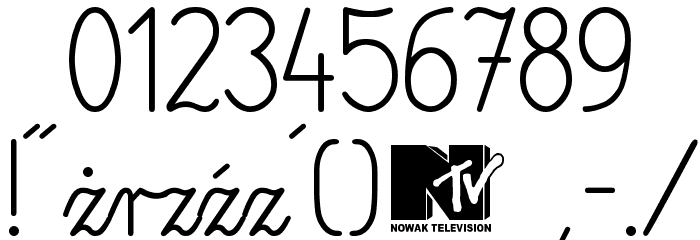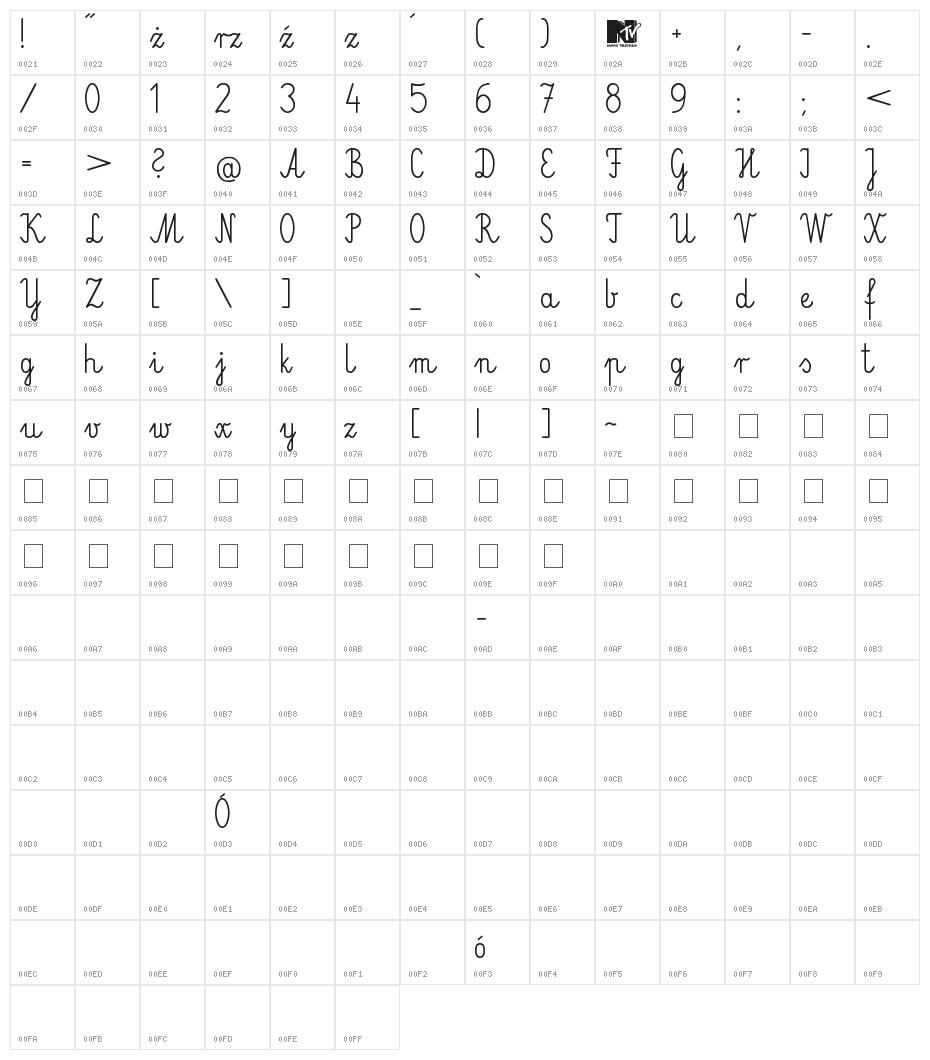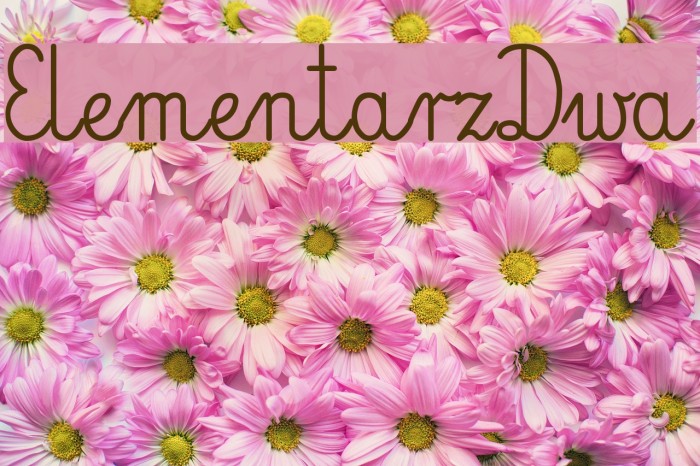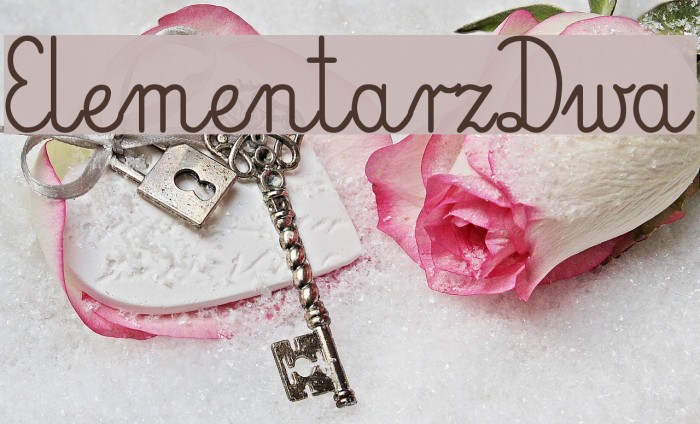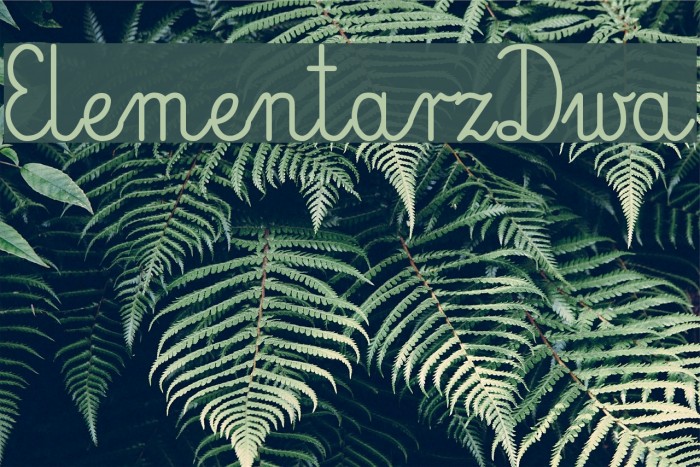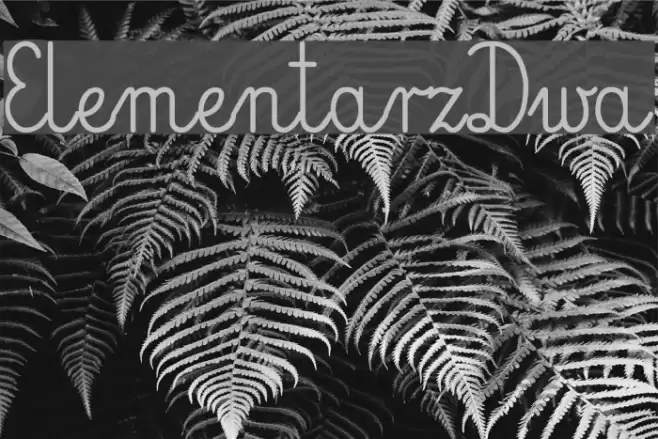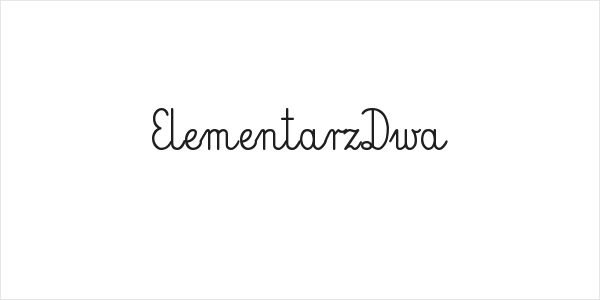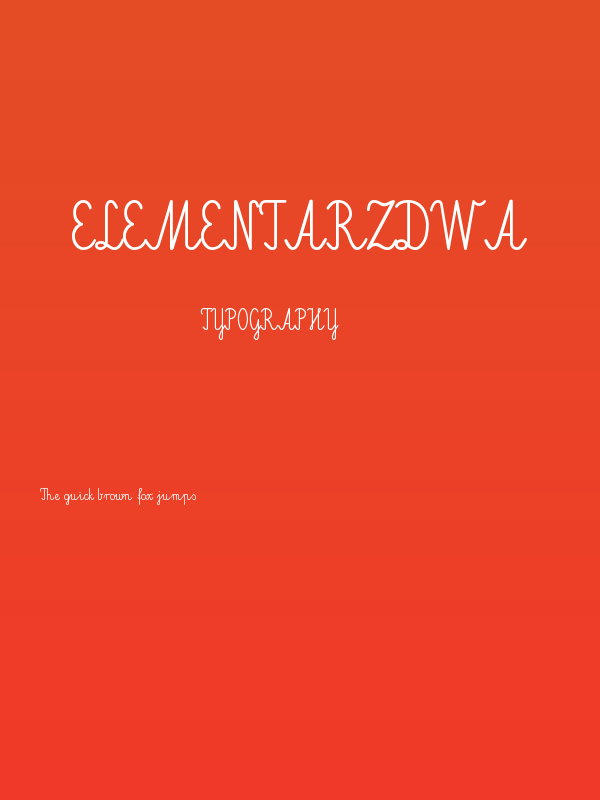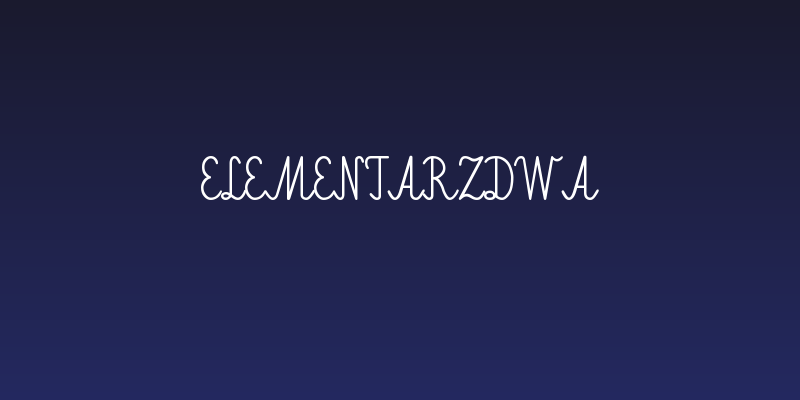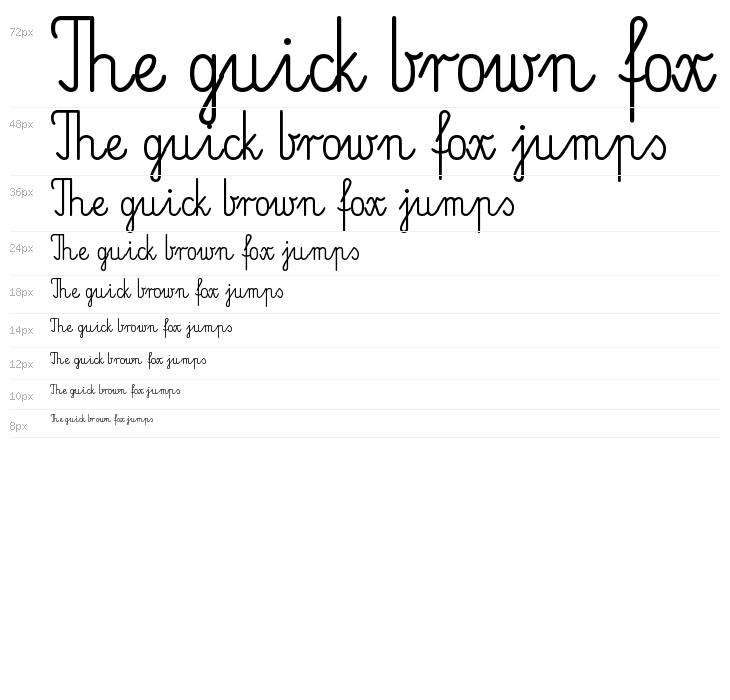
ElementarzDwa Font
ElementarzDwa Description
This font features a playful and casual handwritten style with a consistent flow throughout the characters. The uppercase letters are slightly taller and maintain a uniform height, while the lowercase letters exhibit a charming looped design, particularly noticeable in letters like 'g', 'j', and 'y'. The numerals are clear and easy to read, matching the overall whimsical aesthetic. Special characters are integrated seamlessly, maintaining the font's cohesive appearance. The strokes are smooth and rounded, giving the font a friendly and approachable feel.